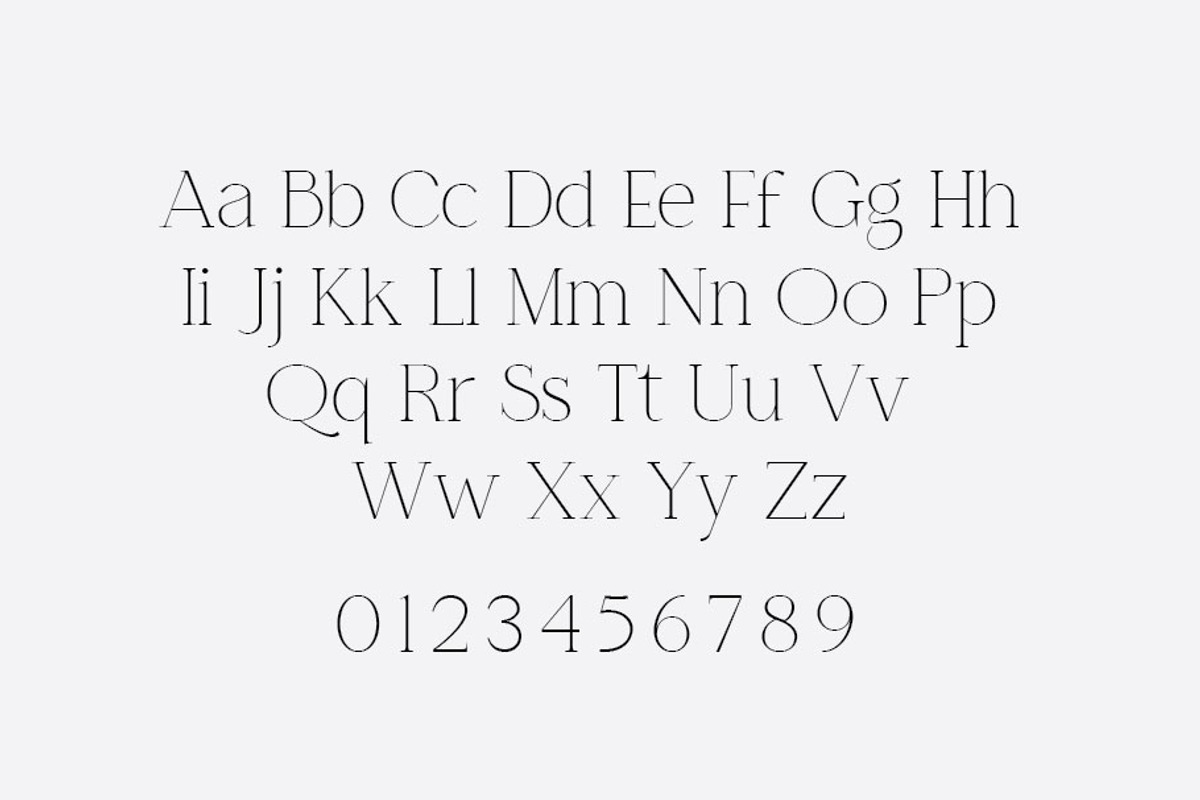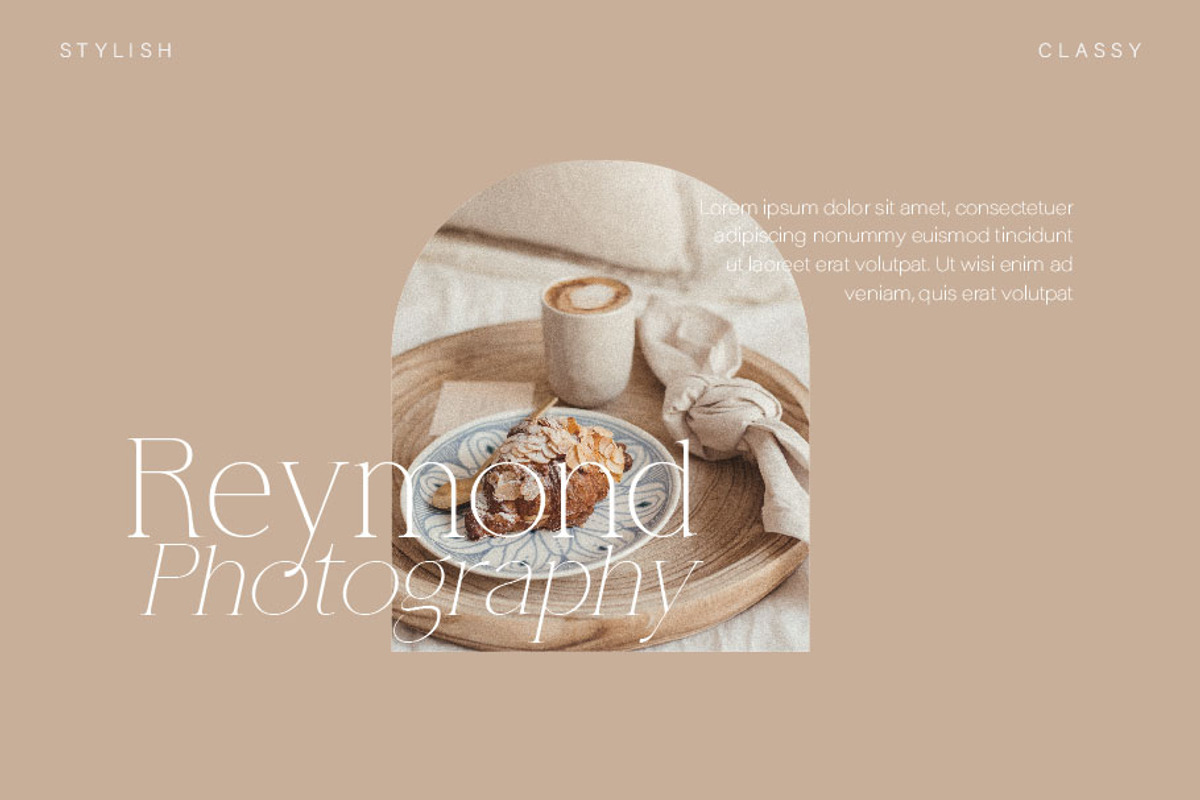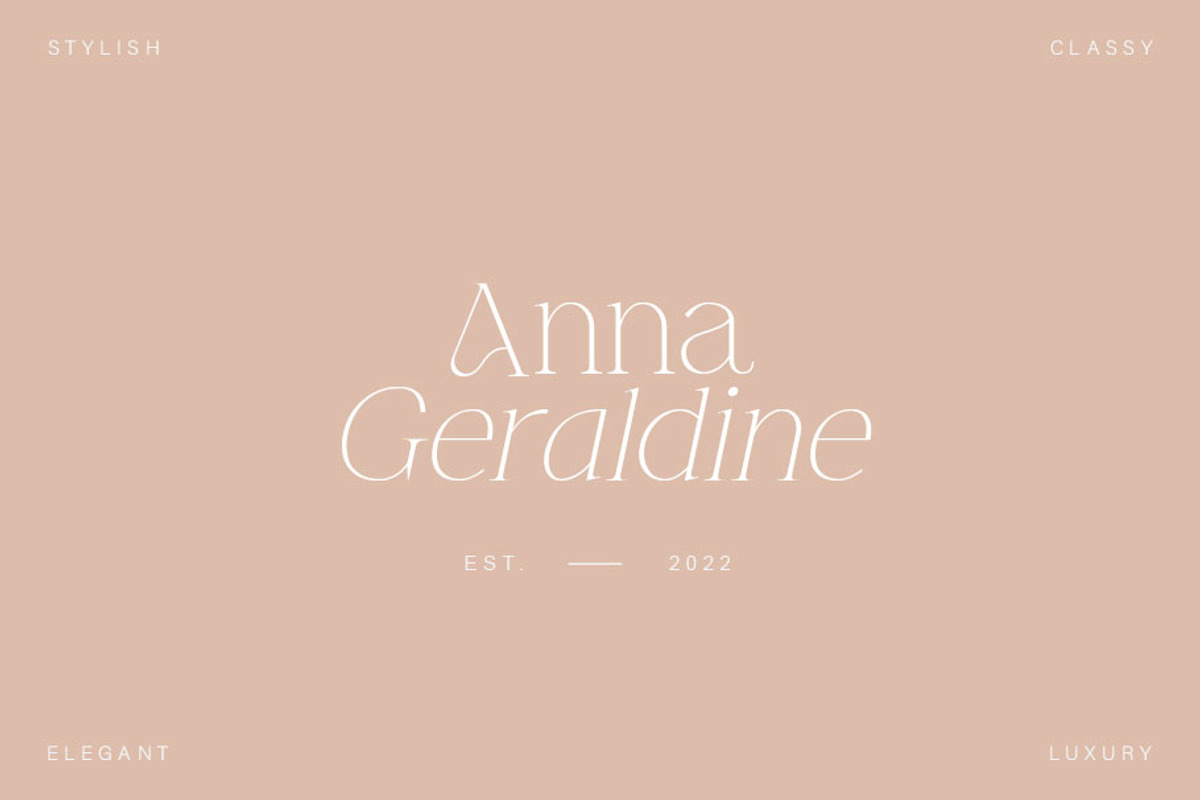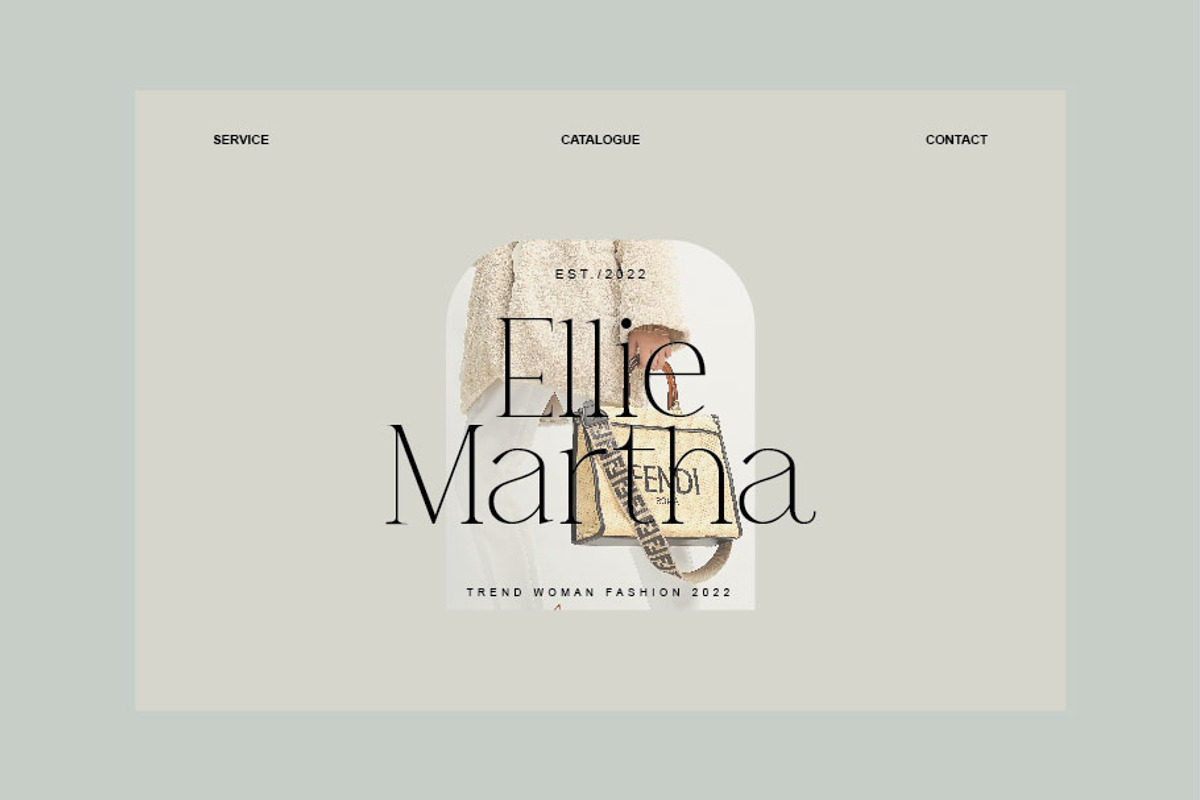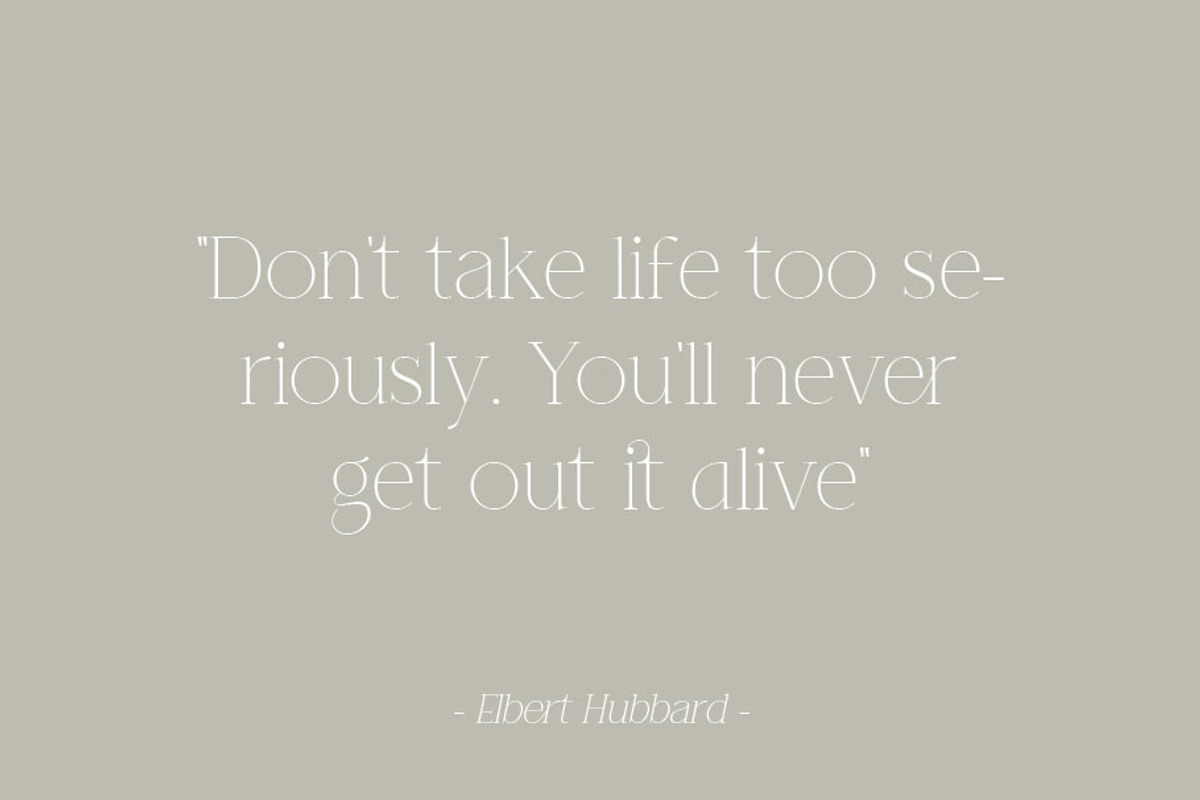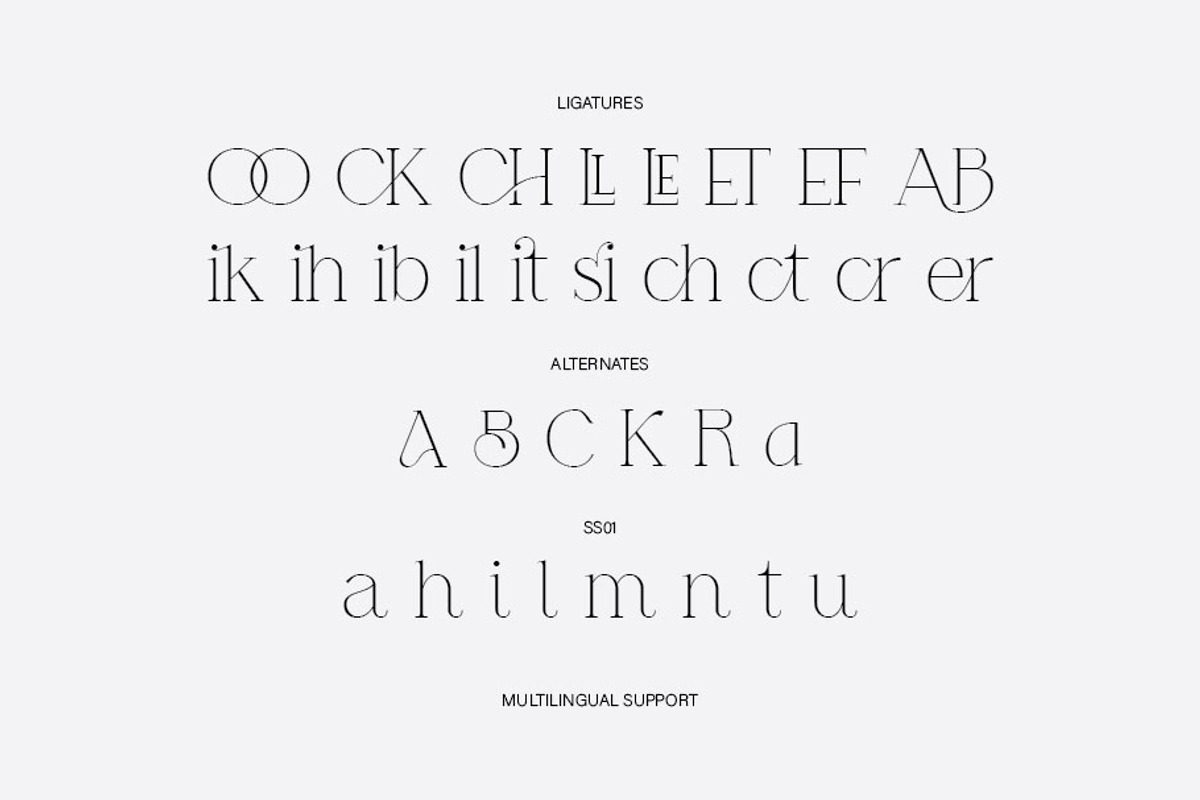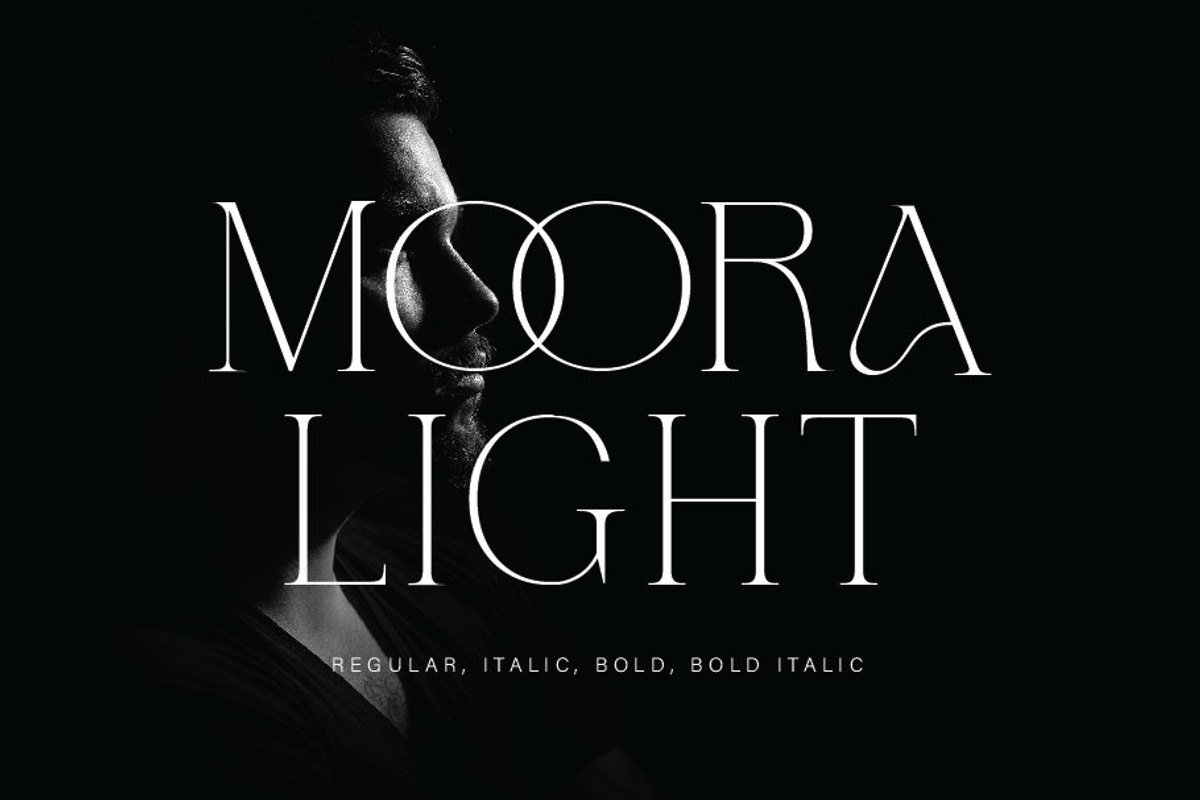
MOORA LIGHT
Moora Light feels playfully nostalgic and delivers an incredible vintage aesthetic. Use this serif font to add that special retro stylish touch to any design idea you can think of!